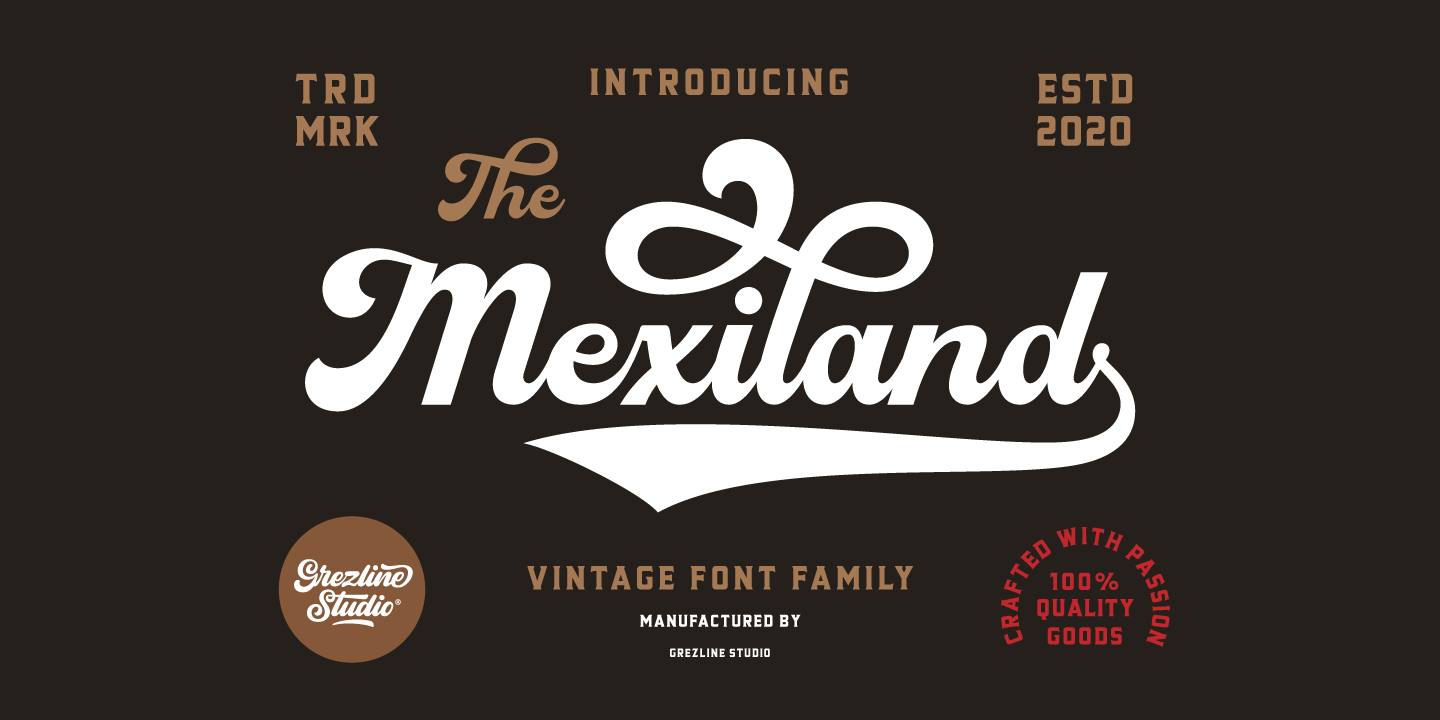
Mexiland Font is perfect for authentic Mexican restaurant branding, Cinco de Mayo celebration graphics, Latin American cultural festivals, traditional mariachi event promotions, vibrant taco shop signage, Mexican tourism marketing materials, Day of the Dead artistic projects, salsa dance studio communications, colorful fiesta invitations, and respectful Mexican heritage celebrations. This festive typeface excels in applications where Mexican cultural richness and vibrant tradition need to be communicated with authentic celebration and respectful cultural appreciation that honors the colorful heritage and joyful spirit of Mexican culture and traditions.
What makes Mexiland Font exciting is its remarkable ability to embody the vibrant energy and festive spirit of Mexican culture through its boldly expressive letterforms that seem to dance with the rhythmic joy of mariachi music and the colorful celebration of traditional fiestas. The font captures the essence of Mexican cultural pride with its energetic construction and fiesta-inspired proportions that suggest the warm hospitality of Mexican traditions and the artistic richness found in authentic Mexican craftsmanship. Its carefully crafted character details and celebratory personality create an atmosphere of joyful authenticity that resonates with Mexican communities, cultural educators, and businesses dedicated to honoring Mexican heritage with respect and genuine appreciation.
The Mexiland Font family typically includes Regular and Bold weights, each maintaining the signature festive characteristics and cultural authenticity. Some versions offer decorative variants inspired by traditional Mexican folk art patterns, alternative character sets with Spanish language support and accent marks, and specialized symbols that enhance the cultural celebration. The family may also include condensed styles for efficient bilingual signage and display cuts optimized for festival promotions and cultural events requiring authentic Mexican representation and vibrant visual impact.
Whether you're creating authentic Mexican brand identities, cultural celebration materials, or respectful Latin American communications, Mexiland Font Free Download delivers the perfect cultural vibrancy your Mexico-focused projects deserve. Its Mexican-inspired character and festive styling make it an invaluable choice for Mexican restaurants, cultural organizations, and celebration planners working in authentic Mexican cuisine, cultural preservation, and respectful cultural celebration sectors where genuine appreciation and dignified representation are essential for building meaningful connections with Mexican heritage while celebrating the rich traditions and joyful spirit of Mexican culture.